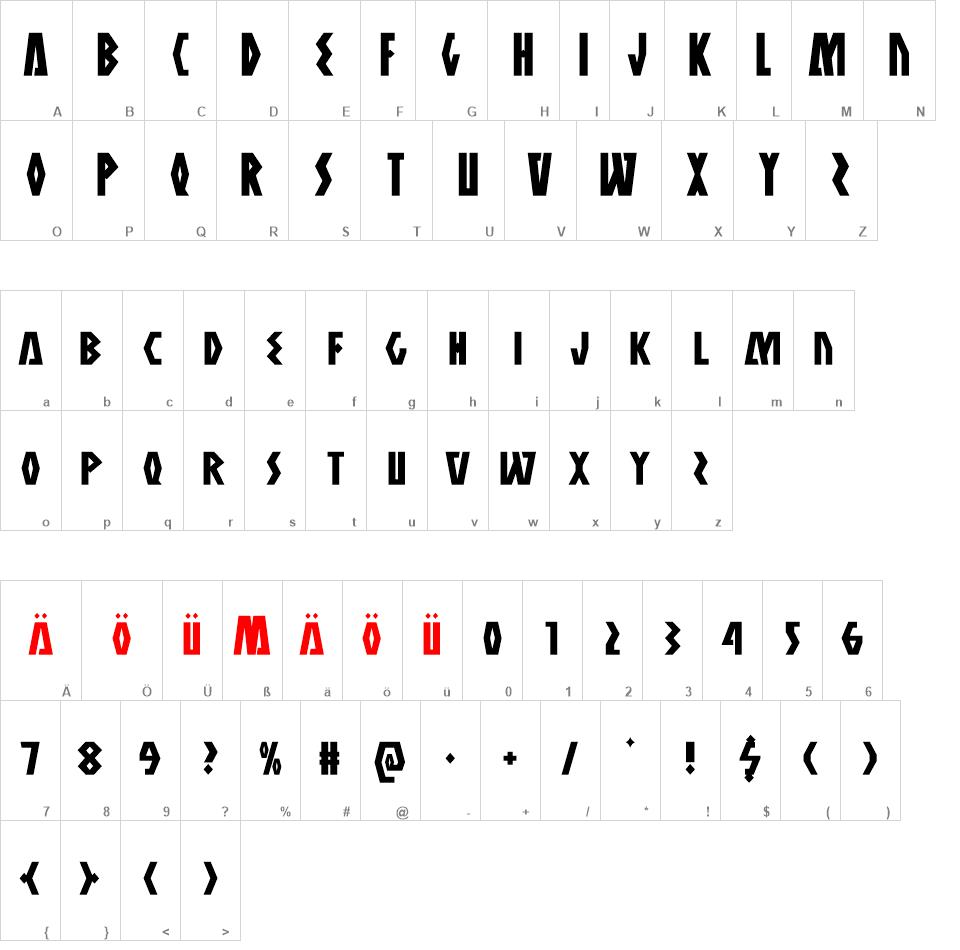
Antikythera
Antikythera font
Antikythera
A title font named for the Antikythera mechanism found off the coast of a Greek isle several decades ago. The device was a precise calculation insturment with engineering centuries ahead of its time. It was, historians say, the first real computer, and another device with similar functionality and engineering would not be seen again for several more centuries. Antikythera comes with a complete Latin character set.